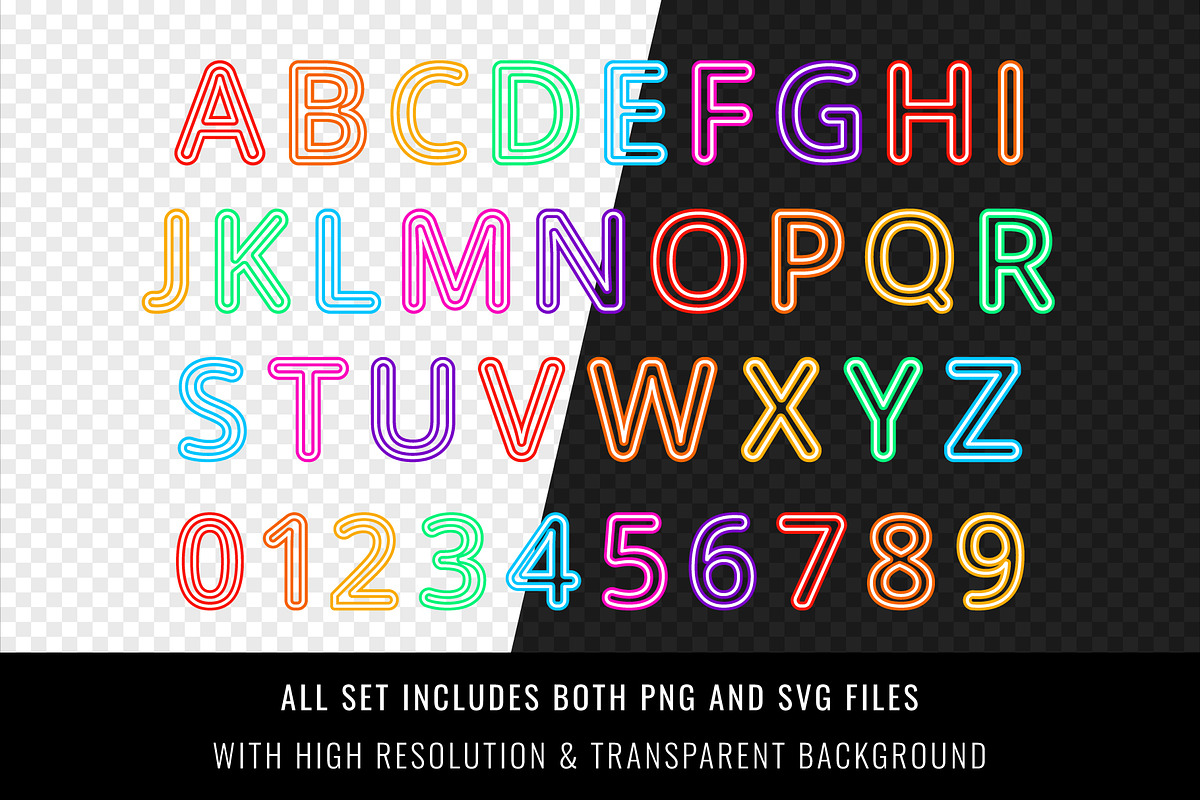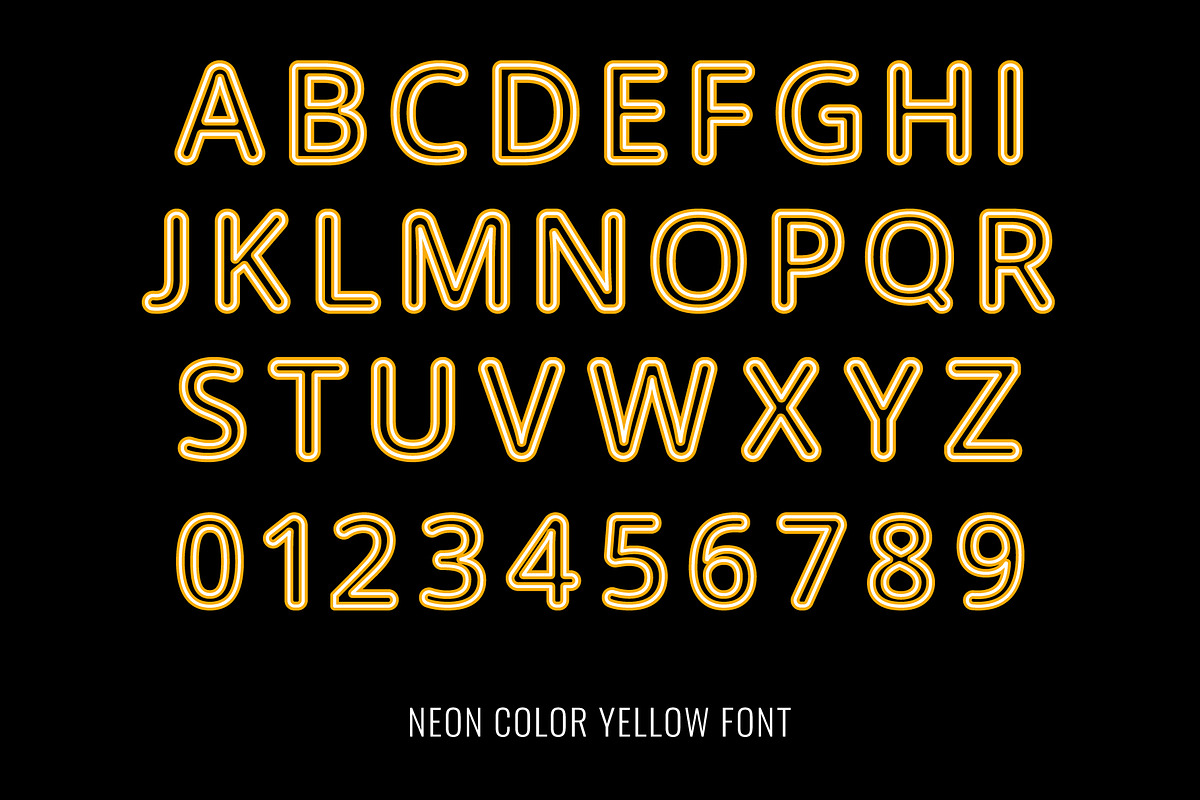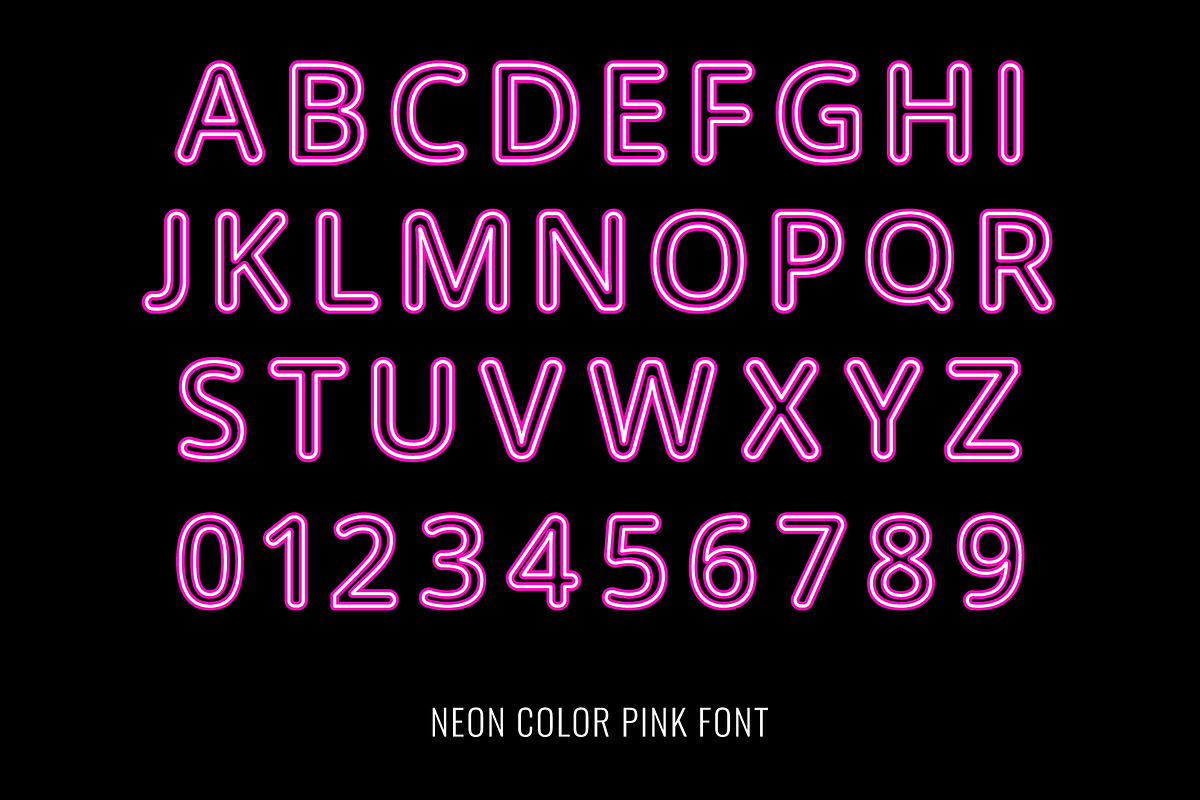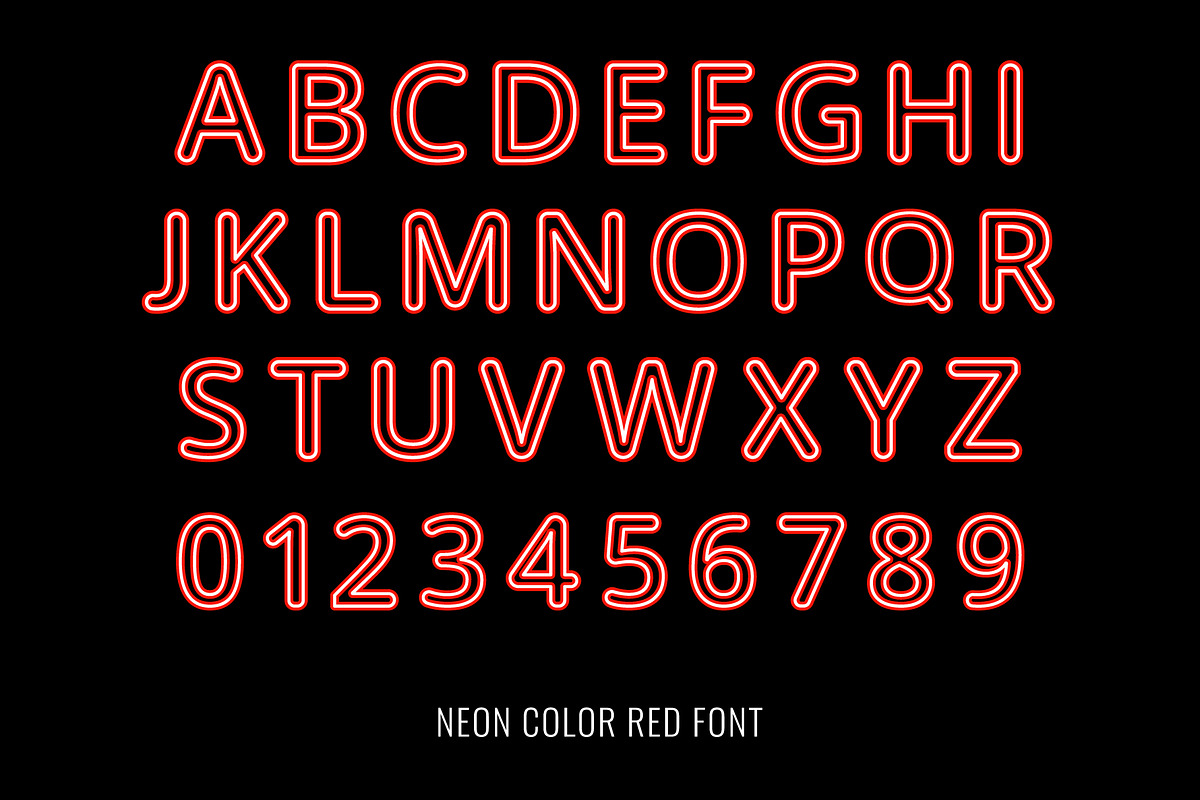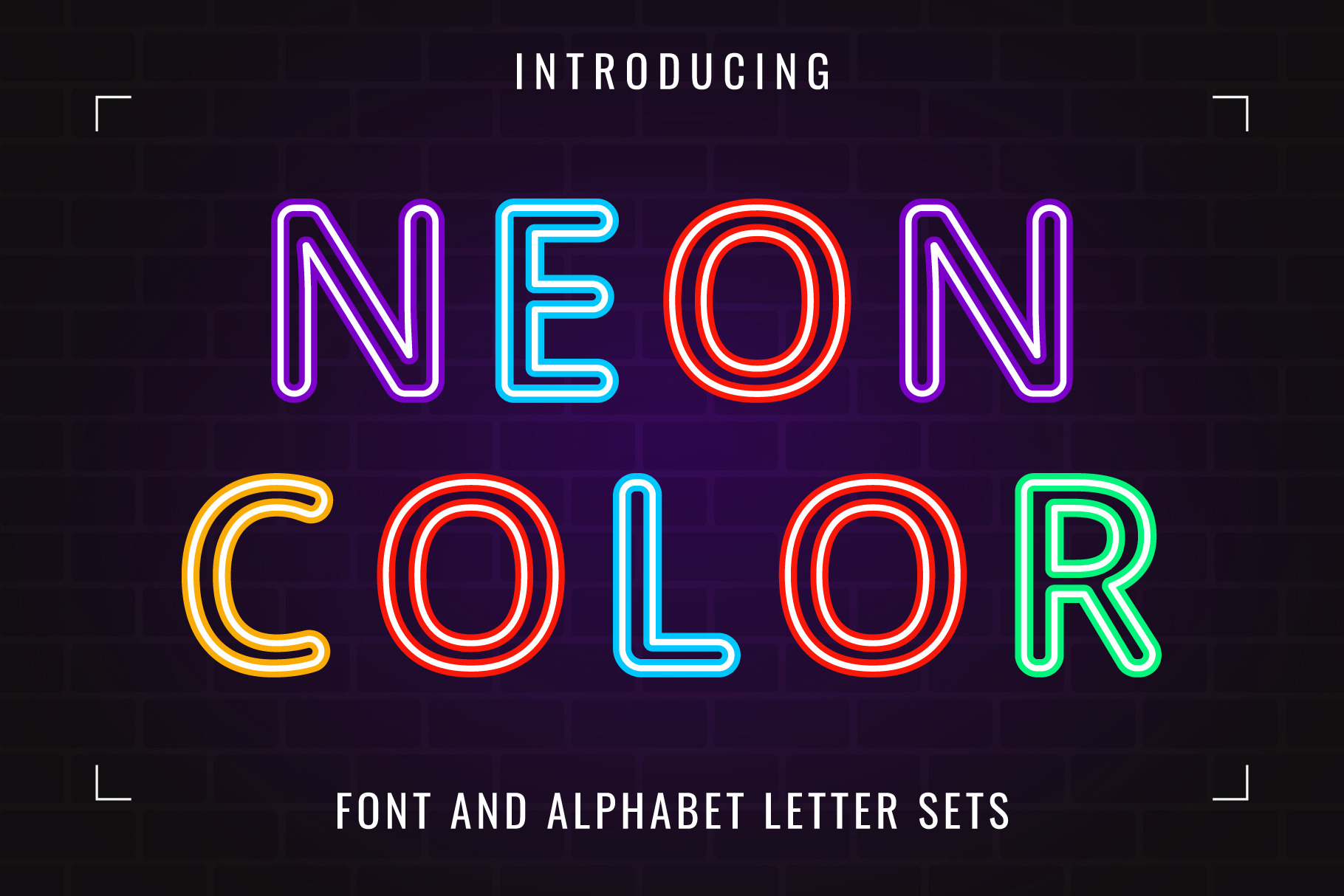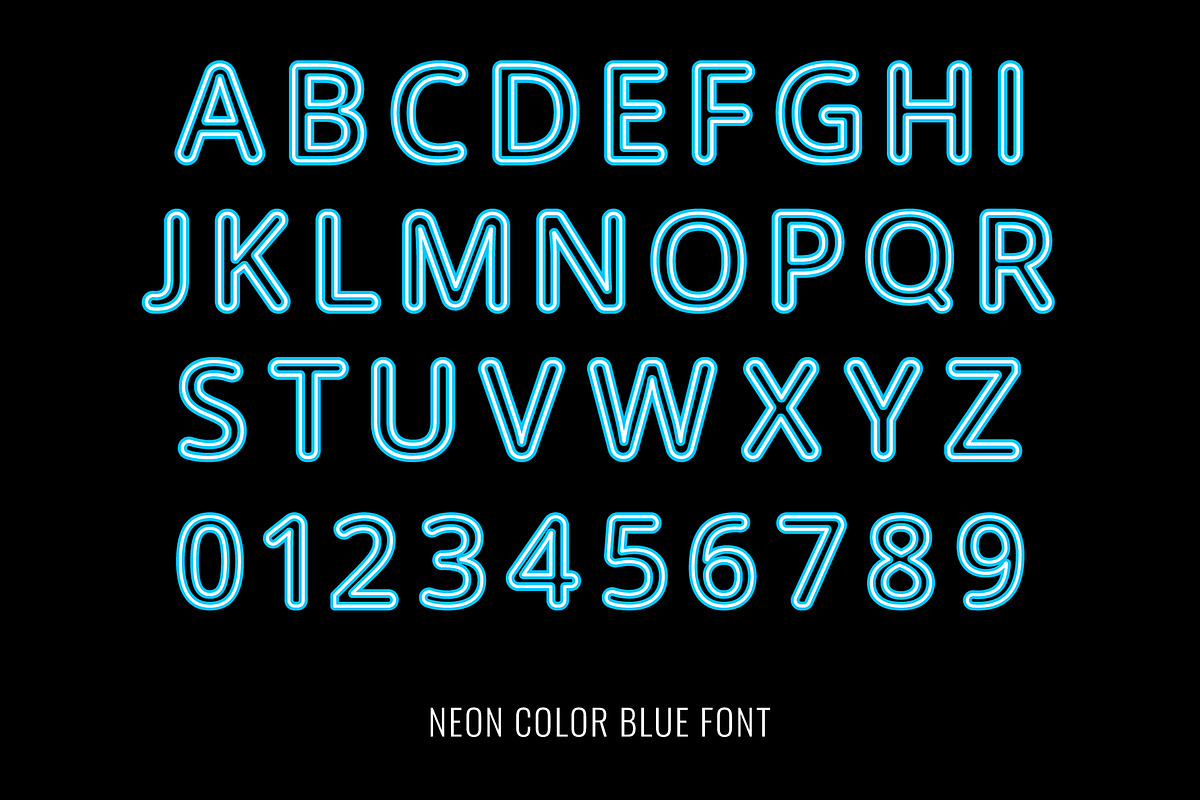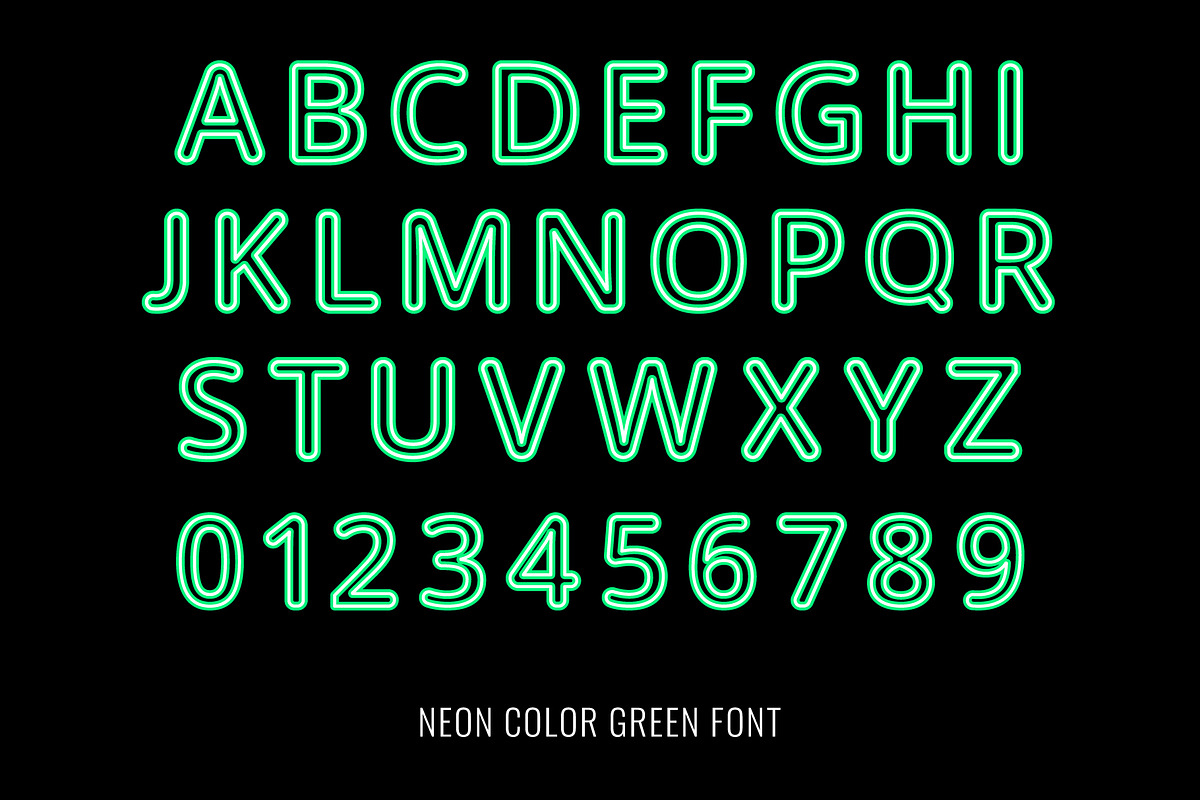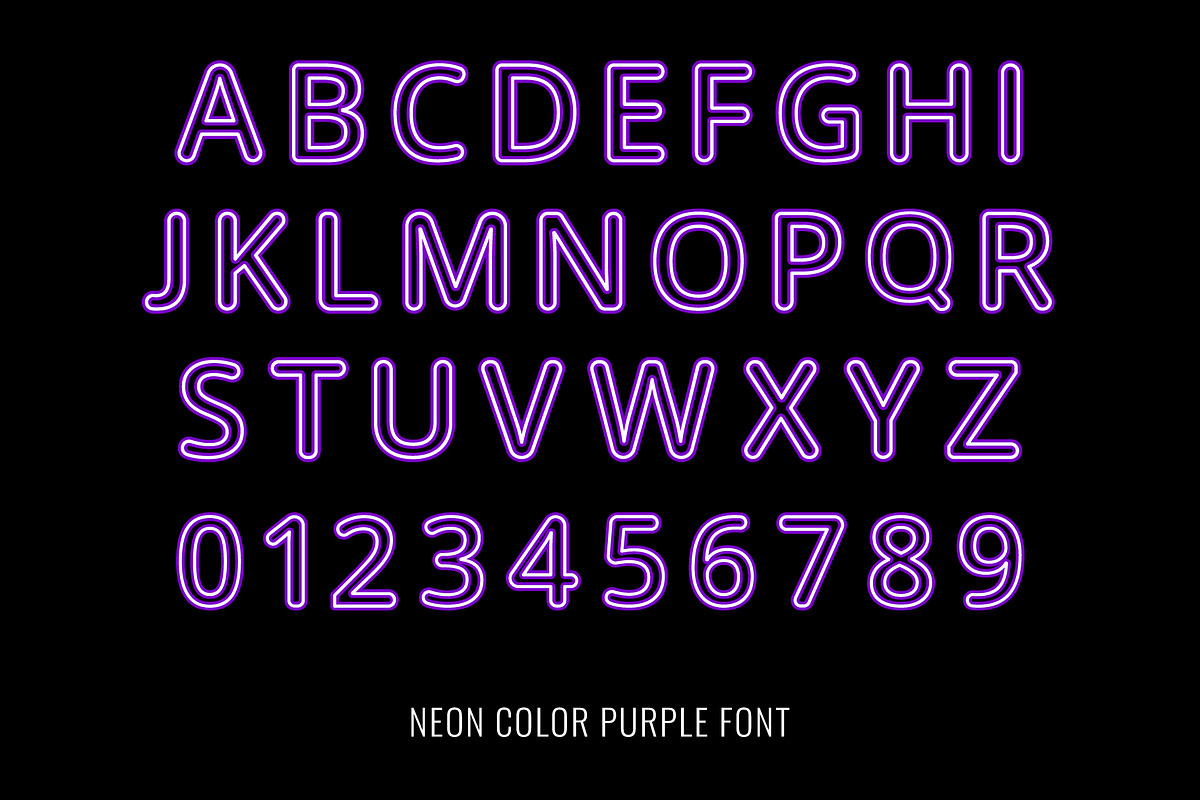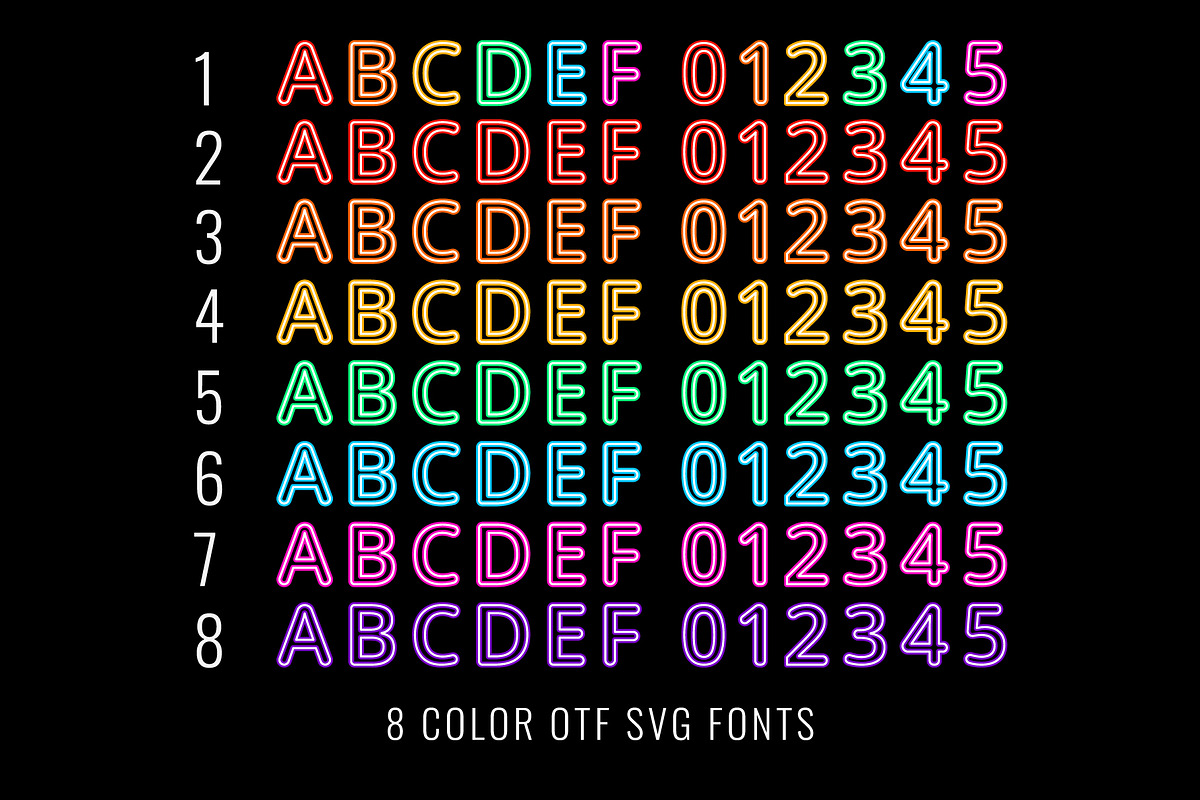
Neon Color Font family
Introducing “Neon Color Font” – This charming font was created with inspiration ideas from colorful neon lights at night. large selection of 7 ready-made font styles + one multicolor for your design freedom. The originality of the font will fit well into the fashionable logo, headline in the magazine or on the website, emphasize the trend of the product in branding, and complement web advertising on social media.
- This entire font is capitalized.
- Letters: A B C D E F G H I J K L M N O P Q R S T U V W X Y Z.
- Numbers: 0 1 2 3 4 5 6 7 8 9.
- Excluding punctuation.